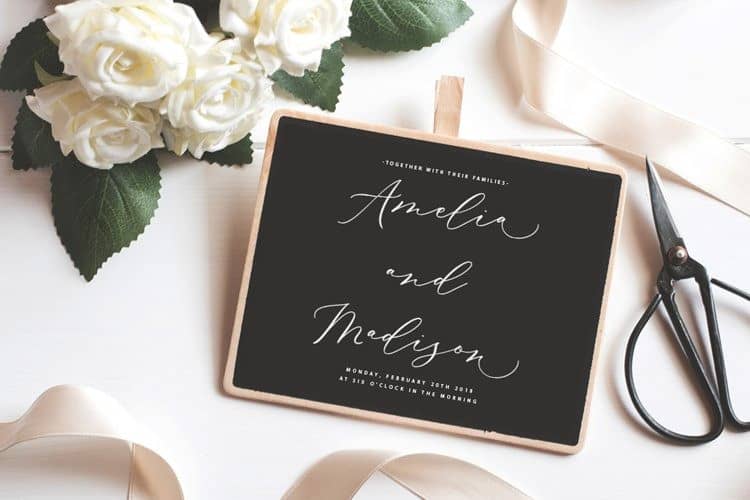
Biancha Script Font
Introducing Biancha Script Font, a Quality script that is written casually and quickly with many ligature. It’s designed and shared by sizimon. Connecting script, designed to convey elegance and style. It is slender, feminine and friendly. Biancha is perfect for fashion, e-commerce brands, trend blogs, or any business that wants to appear classy and chic.